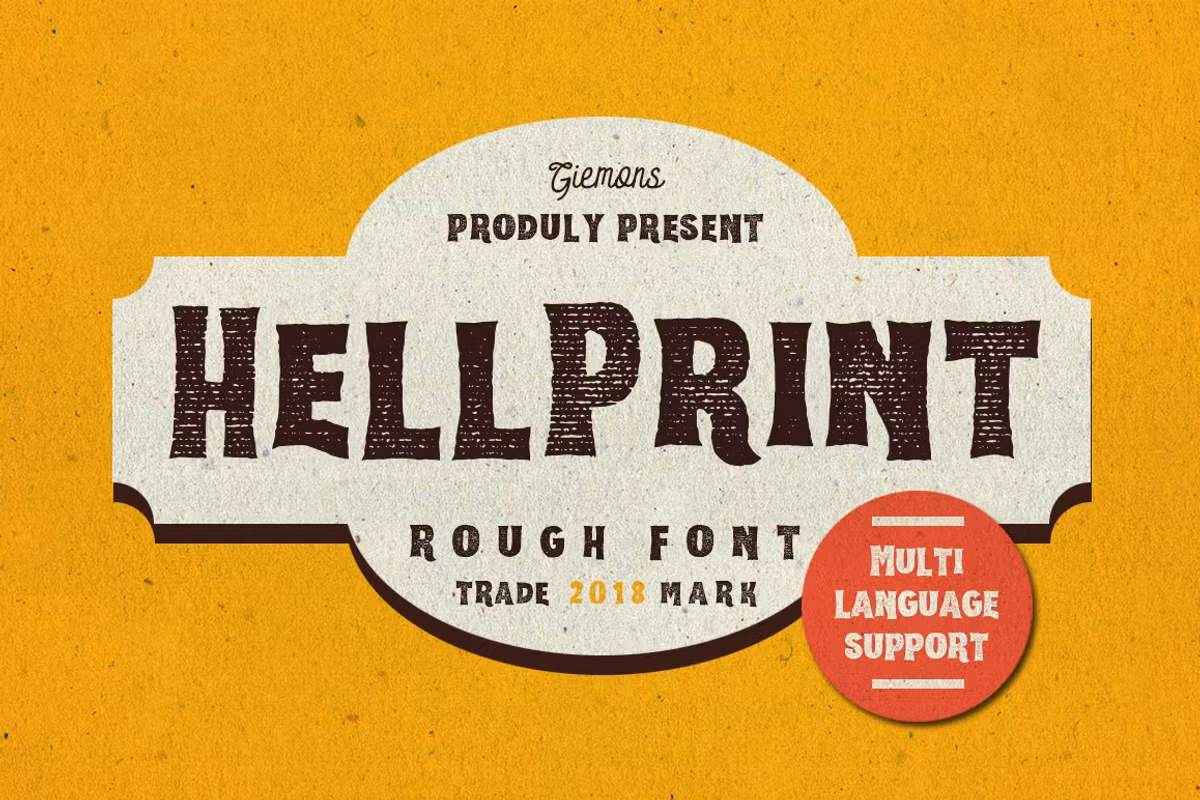
Hellprint Typeface Free Download is a bold and dramatic font designed to make a powerful statement. With its striking, sharp lines and unique, distressed design, this typeface is perfect for edgy branding, music posters, album covers, logos, and any project that demands a high-impact, rebellious aesthetic.
Whether you're working on a gritty brand identity, designing a heavy metal poster, or creating rebellious promotional material, Hellprint brings strength and raw energy to your typography. It’s the perfect font for designers who want their work to stand out with a bold, dramatic presence.